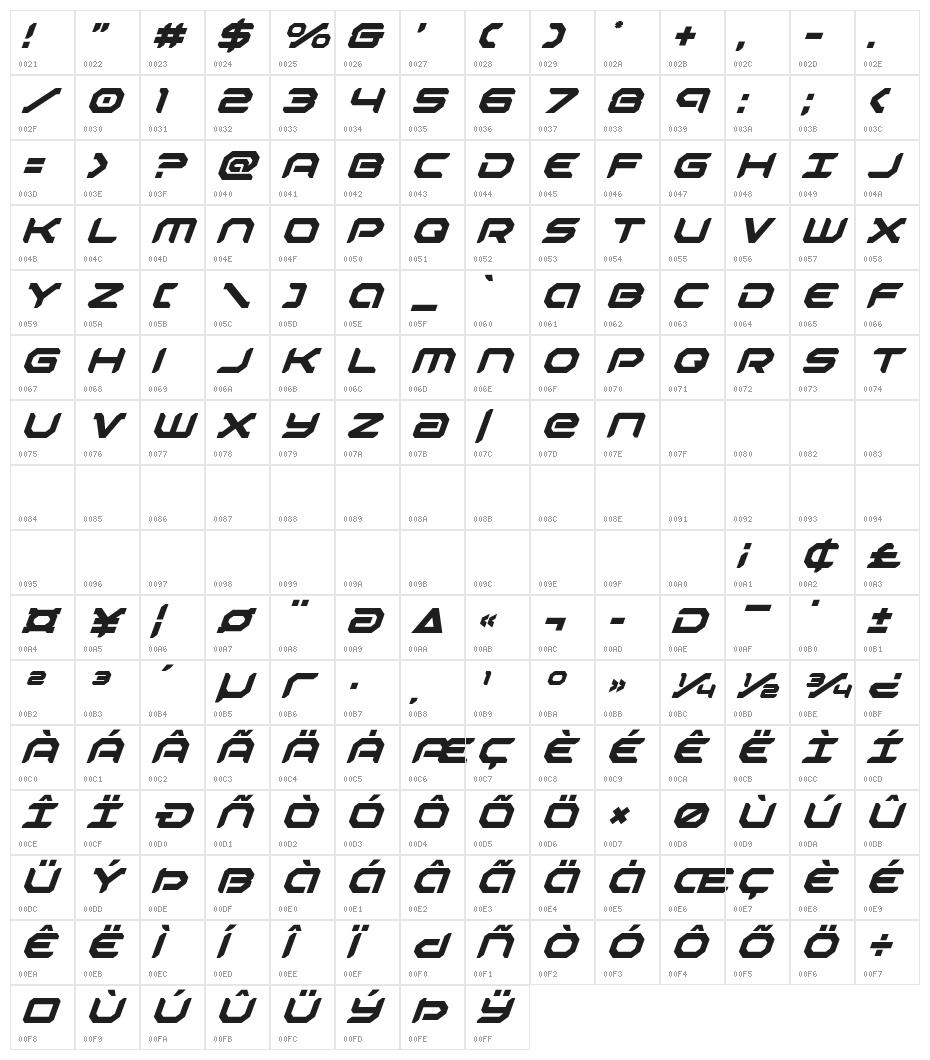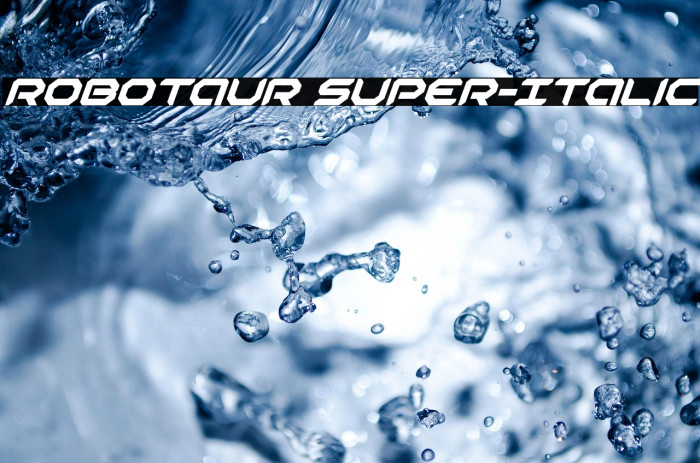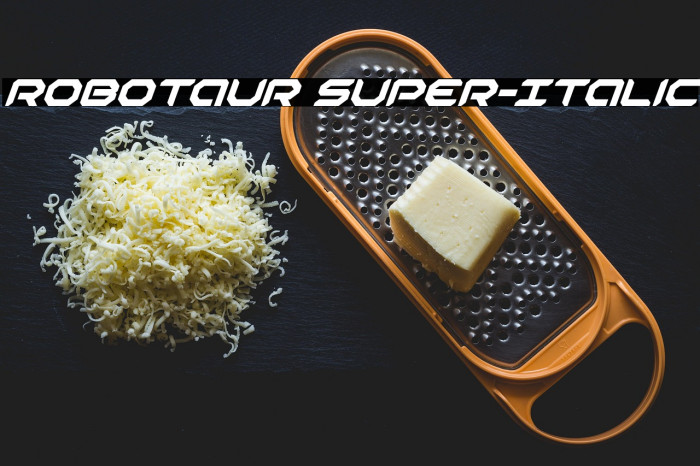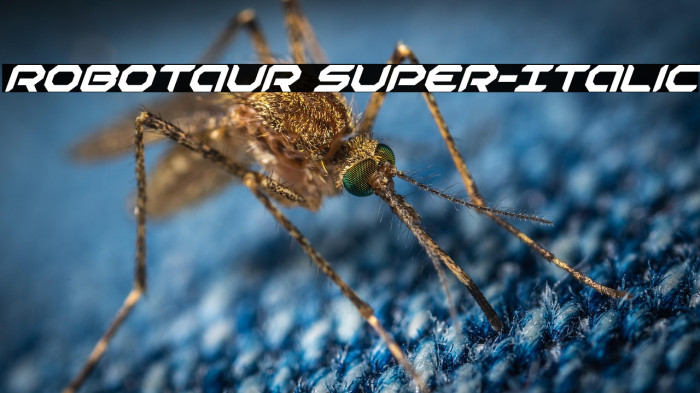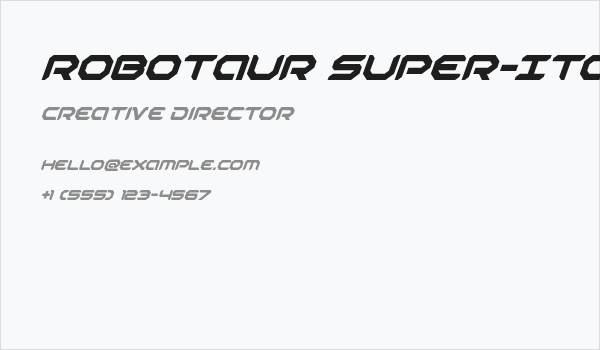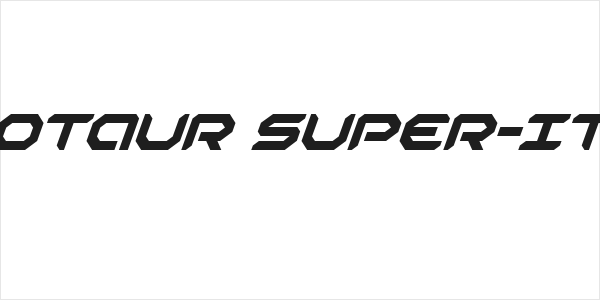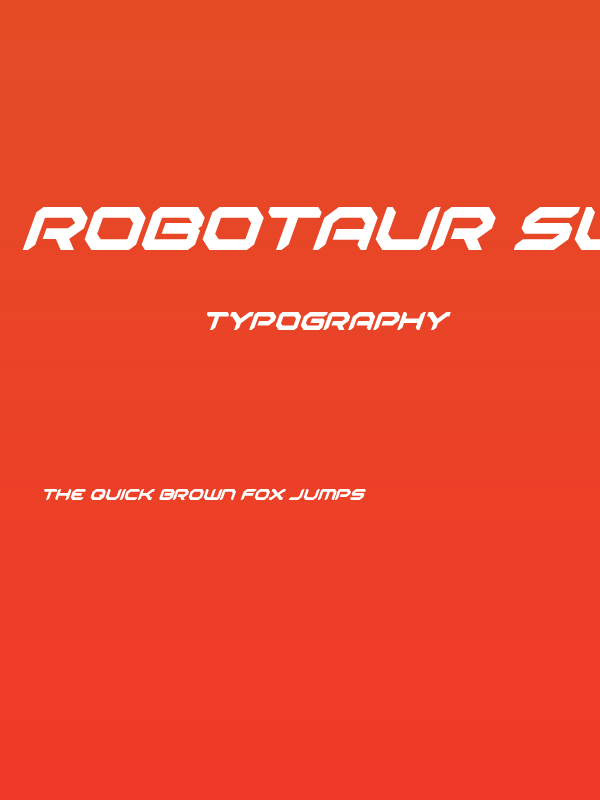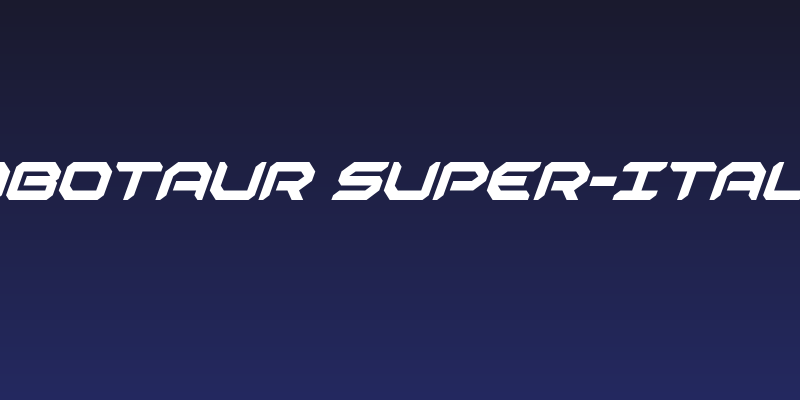
Robotaur Super-Italic Font
Robotaur Super-Italic Description
This font features a futuristic and angular design, characterized by its sharp edges and geometric shapes. The letters are slanted, giving it an italicized appearance, which adds a dynamic and forward-moving feel. The uppercase and lowercase letters maintain a consistent style, with a bold and robust structure that suggests strength and modernity. The numbers and special characters follow the same design principles, ensuring uniformity across all glyphs. The font's unique style makes it suitable for projects that require a modern and tech-oriented aesthetic.
Proposed ProjectsIdeal for technology branding, sci-fi themed designs, video game titles, and modern advertising.